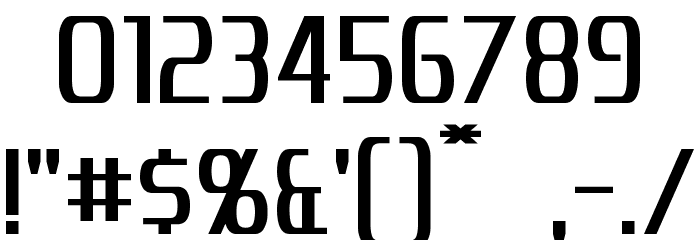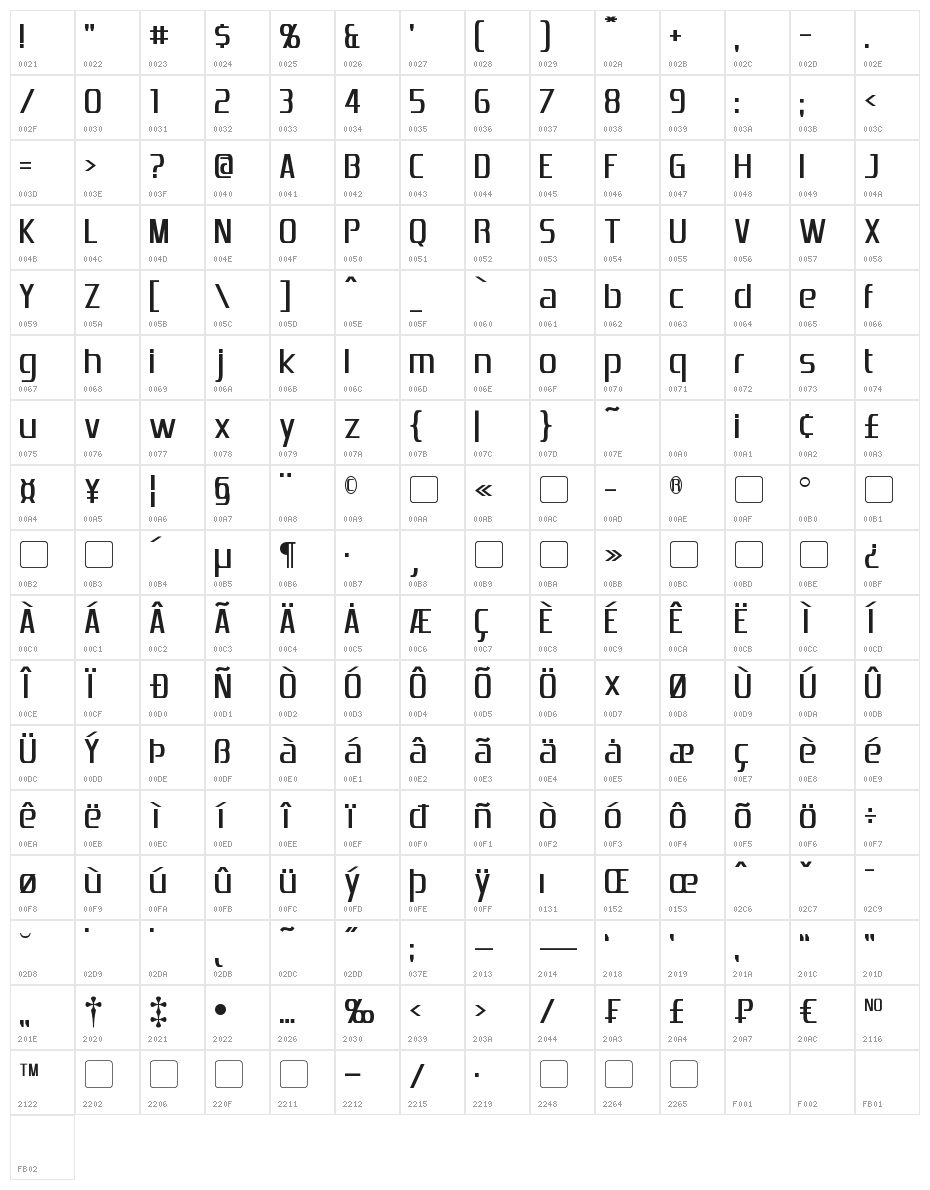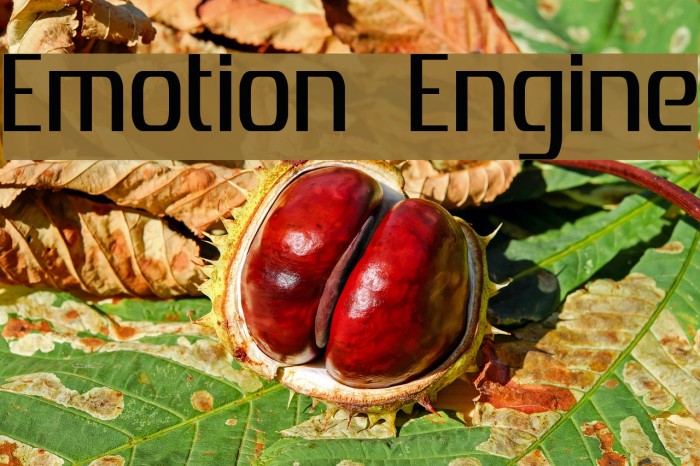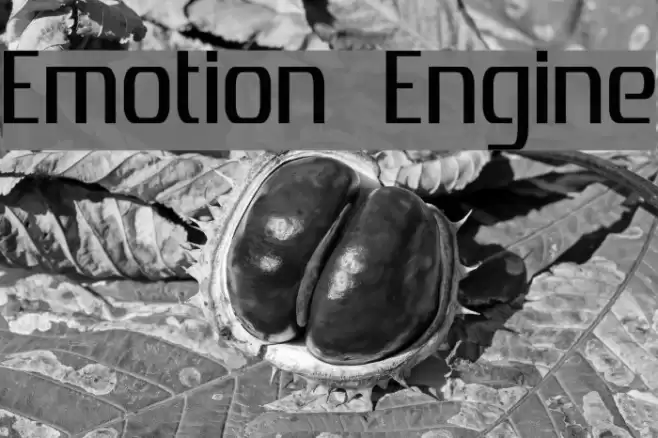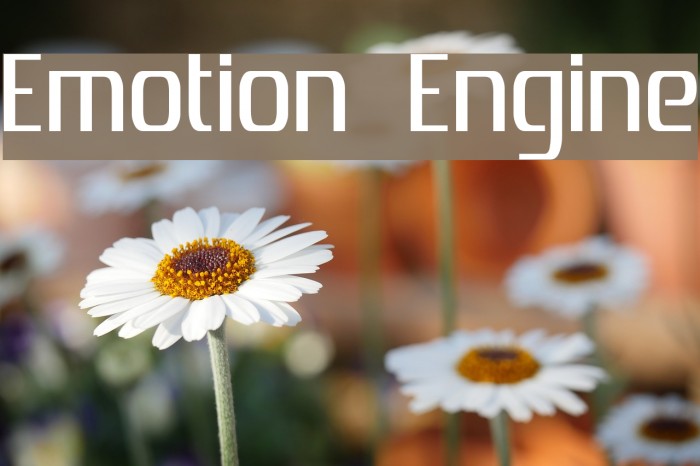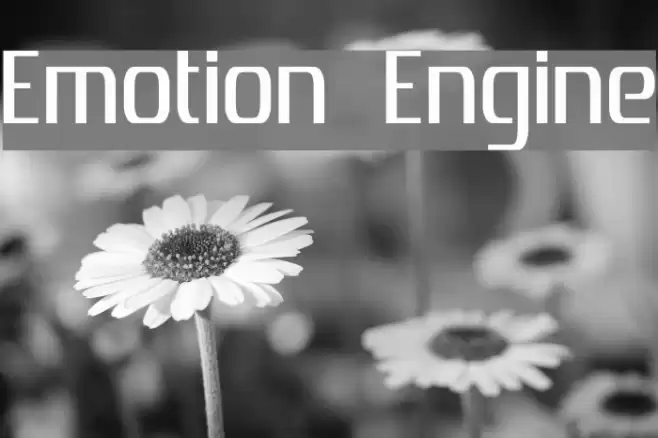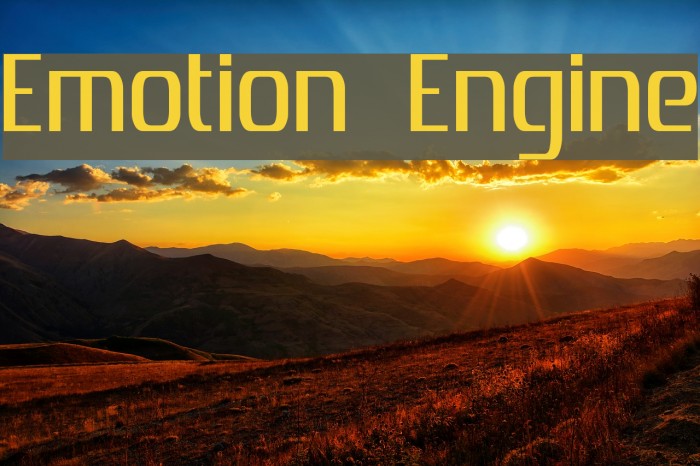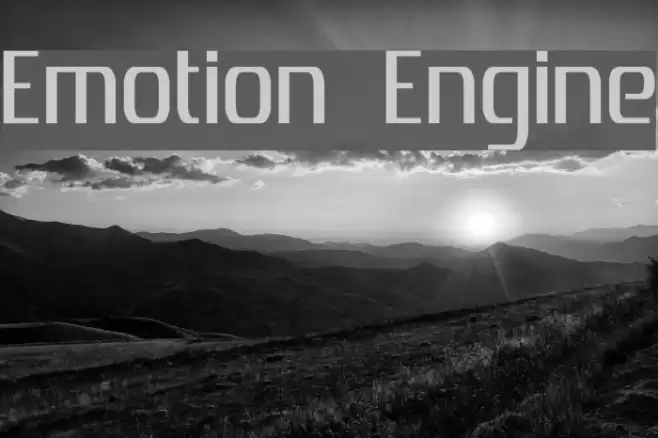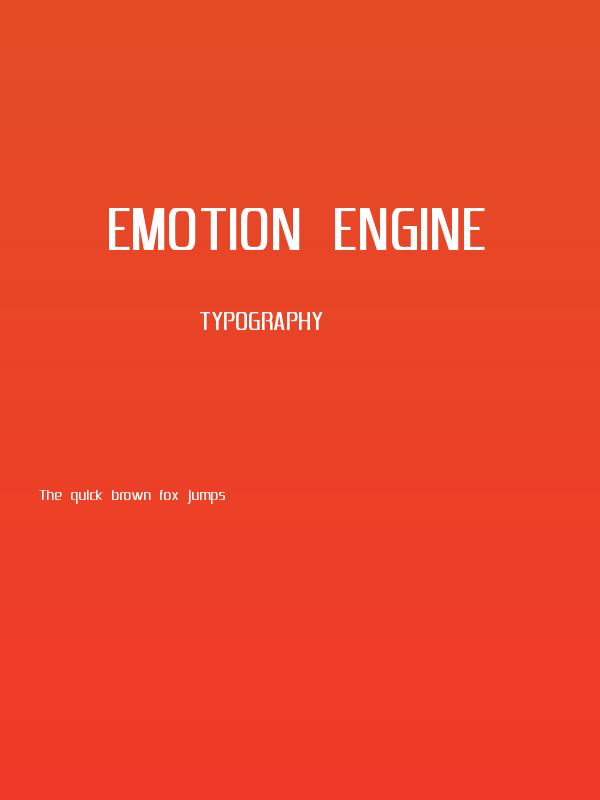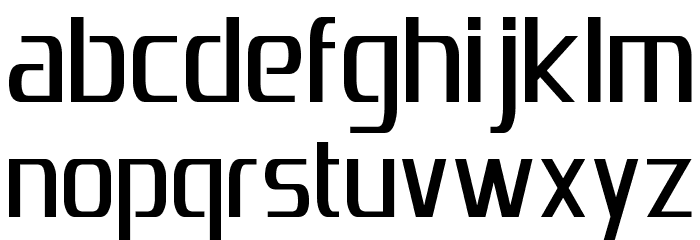
Emotion Engine Font
Emotion Engine Description
This font features a modern, geometric design with clean lines and a slightly condensed structure. The uppercase letters are bold and assertive, while the lowercase letters maintain a consistent flow with rounded edges that soften the overall appearance. The numerals are uniform and align well with the alphabetic characters, ensuring readability. Special characters are distinct and integrate seamlessly with the rest of the font, making it versatile for various applications. The font's design is suitable for digital and print media, offering a contemporary aesthetic that is both professional and approachable.
| Use Case | Headlines, Logos, Digital Media |
| Proposed Projects | Ideal for branding, digital media, advertising, and editorial design. |